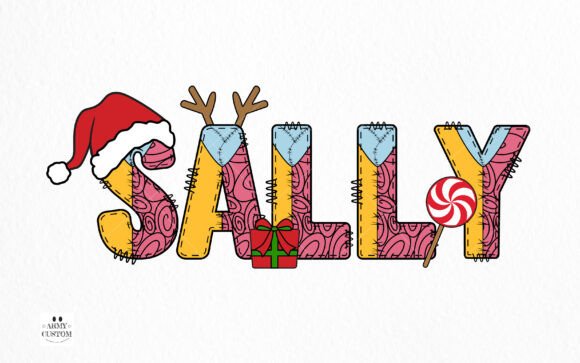
Christmas Movie Bundle Font: Elevate Your Festive Projects with Whimsy and Cheer
The holiday season is upon us, and with it comes the desire to create festive and fun designs that capture the spirit of Christmas. Whether you’re a designer, a DIY enthusiast, or a small business owner, having the right tools and resources can make all the difference in creating eye-catching and engaging projects. One such tool that can add a dash of whimsy and merriment to your designs is the Christmas Movie Bundle Font.
Introducing the Christmas Movie Bundle Font
The Christmas Movie Bundle Font is a delightful and playful font that is sure to become a joyous addition to your holiday design toolkit. With its jovial style and elfish charm, this font is perfect for creating vibrant holiday decorations, adding a touch of festivity to your designs, or simply spreading cheer through your projects.
Key Features of the Christmas Movie Bundle Font
- Whimsical Design: The Christmas Movie Bundle Font is designed to evoke a sense of whimsy and playfulness, making it perfect for holiday designs and projects.
The Inspiration Behind the Font
The Christmas Movie Bundle Font is inspired by the adorable antics of Santa’s helpers, the elves. Each letter in the font is designed to evoke a sense of joy and playfulness, making it the perfect choice for holiday designs and projects. Whether you’re creating decorations, gifts, or simply want to add a touch of festivity to your social media posts, this font is sure to bring a smile to people’s faces.
Design Uses for the Christmas Movie Bundle Font
- Holiday Decorations: Use the Christmas Movie Bundle Font to create eye-catching holiday decorations, such as signs, banners, and garlands.
- Gift Tags and Cards: Add a personal touch to your gifts and cards with this festive font.
- Social Media Posts: Use the font to create engaging and festive social media posts that are sure to spread cheer.
- Marketing Materials: Use the font to create festive marketing materials, such as flyers, brochures, and posters.
Why Choose the Christmas Movie Bundle Font?
With so many fonts available, why choose the Christmas Movie Bundle Font? Here are just a few reasons why this font stands out:
Benefits of the Christmas Movie Bundle Font
- Unique Design: The Christmas Movie Bundle Font has a unique and whimsical design that is sure to capture the spirit of the holiday season.
- Versatility: The font is versatile and can be used for a variety of design projects, from holiday decorations to marketing materials.
The Christmas Movie Bundle Font is a delightful and playful font that is sure to add a dash of whimsy and cheer to your holiday designs and projects. With its unique design, versatility, and ease of use, this font is an excellent choice for designers, DIY enthusiasts, and small business owners. Whether you’re creating holiday decorations, gifts, or marketing materials, this font is sure to bring a smile to people’s faces.